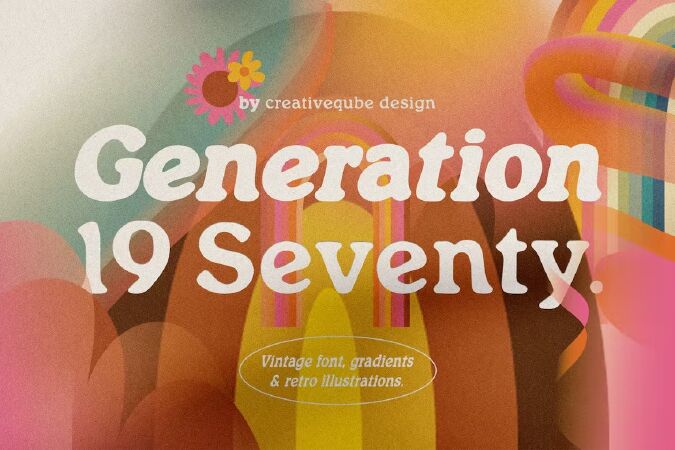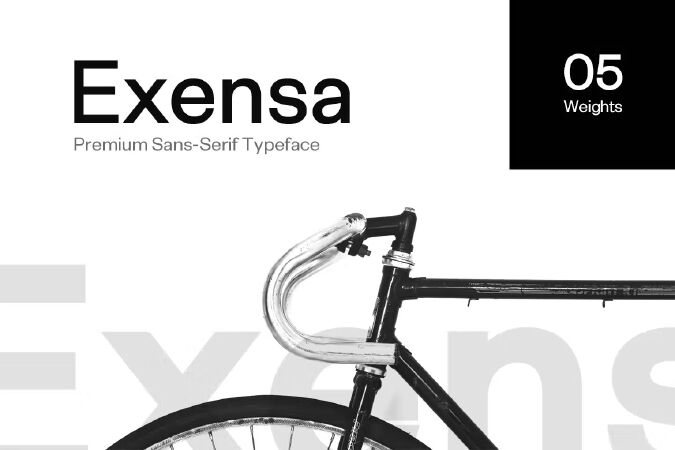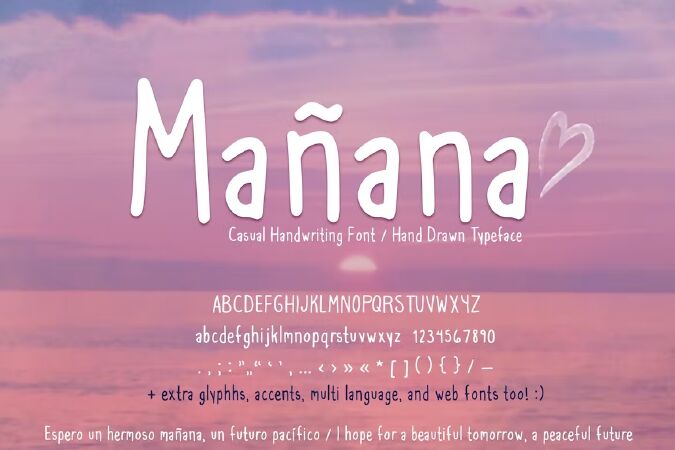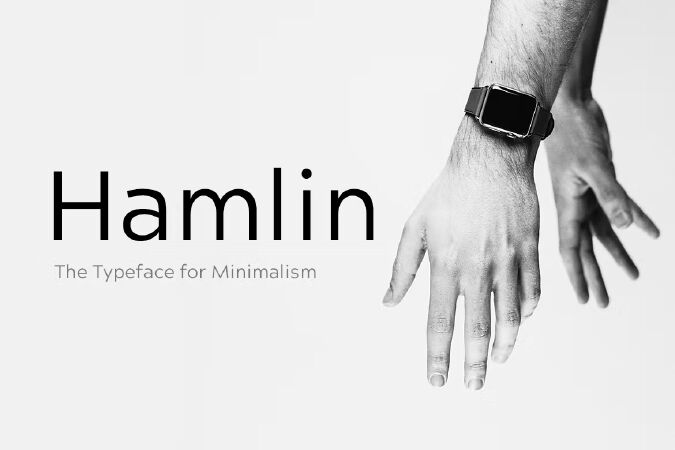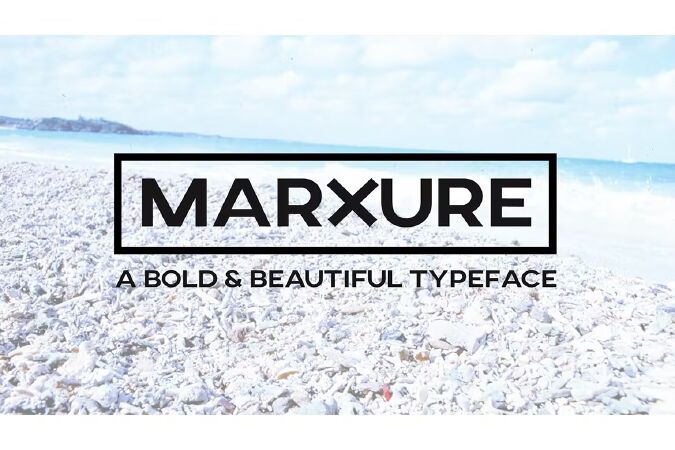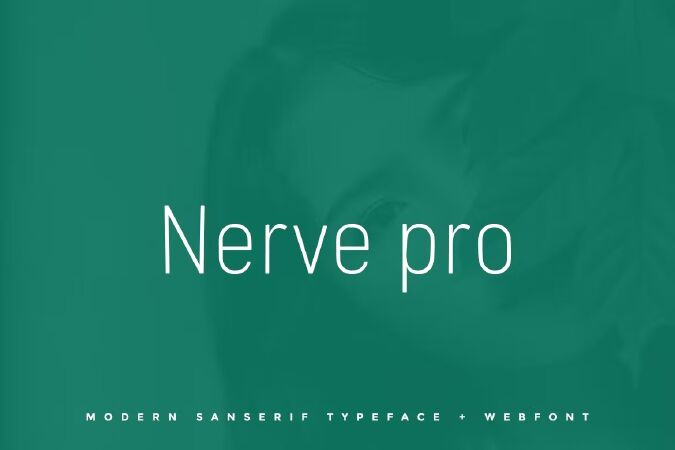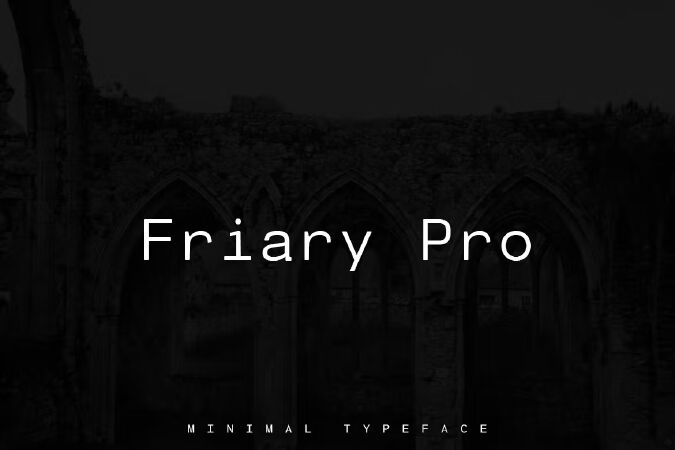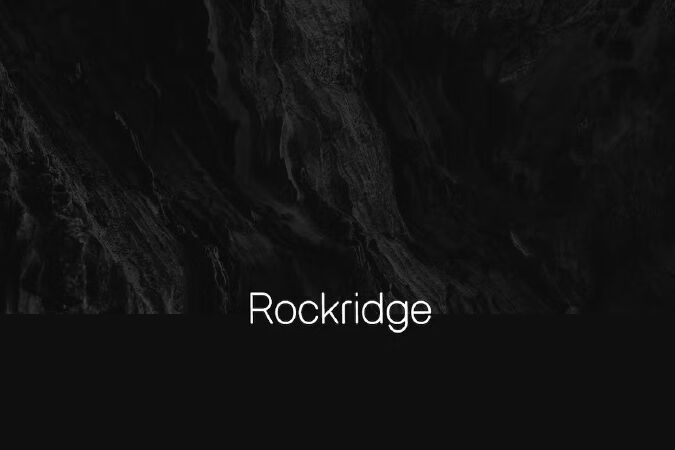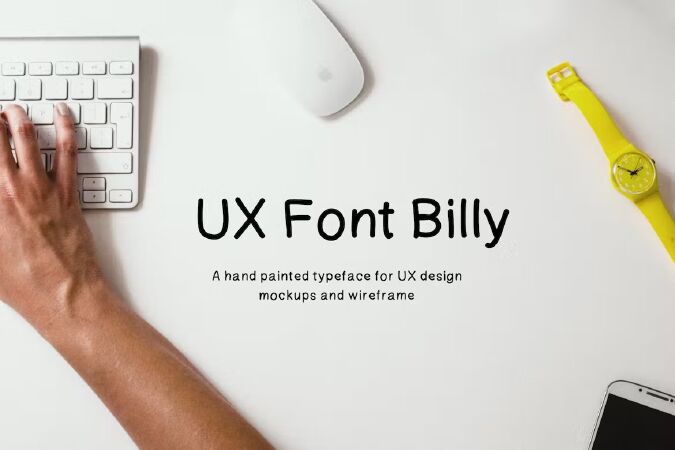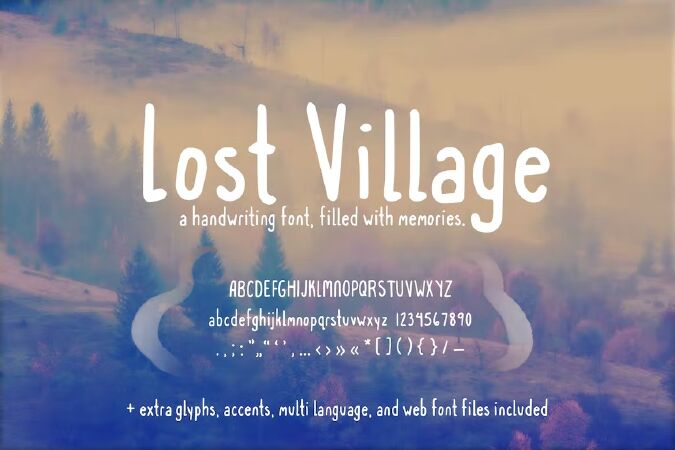
Top 20+ Best Fonts For Your Websites In 2023
Fonts are crucial for creating an awesomeuser experience, conveying brand values, and completing your web design. Not only do fonts affect the readability of your content, but they can also have a powerful psychological impact on your visitors. Each font family has its own character, look, feel and different variations. Choosing the right web fonts is critical to your site’s success. Luckily, this guide is here to help you find the best fonts for you. We’ve researched and found 20 of the best fonts for websites.
1 Generation 1970 Fonts
Generation 19 Seventy is a hip vintage serif font that makes for stunning logos, quotes, wedding invites, blog posts, Instagram, and more! Included is 12 different variations including italicsBold, Condensed, Light, and more.
• Regular Serif
• Italics, Bold, Condensed, Light, Bold Italics, Condensed Light, Condensed Light Italic, Condensed Bold Italic, Light Italic, Outline.
2 Smiley Face Retro Font (90s Handwriting Web Fonts)
Introducing Smiley Face, a retro font with 90's influence. If you love 90's aesthetic fonts, different fonts that play with spacing, handwriting fonts, and just playful fonts, check this one out! I was inspired by the kids shows I grew up with in the 90s. I love a cute handwritten font. This casual font is really fun in different colors. Try it as your next display font!
Every letter was lovingly drawn by me. It includes even more glyphs than featured, including various accents, extended Latin characters, and support for other languages! Web fonts included too, for your website usage.
3 Wave Nautical Font (Handwritten Tattoo Web Fonts)
Introducing Wave Nautical, a sea loving aesthetic font. Love sea shanties? Mermaids? How about retro fonts, or tattoo fonts with a sailor flare? Then you might enjoy this nautical font with a touch of vintage font flare. It's all caps with two variations: upper case letters are filled and lower case letters have a cut out variation. This font also includes extended Latin characters, support for multi languages, and web font files. Enjoy!
Every letter was lovingly drawn by me. This cute font is dedicated to the dread pirate Captain Greenway, a dear friend from the land of renaissance faire!
4 Exensa Grotesk - Sans Serif Typeface & Web Fonts
Exensa Grotesk is an authentic Sans Serif typeface inspired by Swiss Design and some of world's most elegant typefaces that keep the expressive nature of a premium font at it's level best. Exensa Grotesk will be best suited to create nicely looking headlines as well as page content. It is your best choice of Sans Serif font for your next project.
Exensa Grotesk features 5 weights (Light / Regular / Bold / Extra Bold / Black). The pack includes OTF, TTF and Web Fonts (all EOT, SVG, TTF, WOFF included).
5 Mañana Casual Handwriting Font + Web Fonts
Introducing Mañana Casual Handwriting Font, a fun choice if you're looking for hand drawn aesthetic fonts. It has a relaxed feel, like pen strokes on a page. I love cute fonts with an organic look. Whether you're looking for cute fonts, handwriting fonts, or just some different fonts to add to your collection, I hope you enjoy this one!
Mañana also includes a variety of accents, extended Latin characters for multiple languages, and web fonts too! Enjoy!
6 HAMLIN - Minimal Geometric Typeface + Web Fonts
HAMLIN is a modern Sans Serif typeface dedicated to minimalism as new design trend. The concept of HAMLIN is inspired from some of the classic geometric fonts but with it's own uniqueness, depth and identity.
HAMLIN will be best suited for creating amazing headlines, clean body texts, minimal logo types and anything that your imagination can bring to life. If you add some letter spacing you will get a unique style that you always find in high profile fashion web stores and minimal portfolio websites. The font comes with 4 weights with all formats including Web Fonts.
ntroducing, Diana Webber SVG Font Duo.
Diana Webber is a A Display Typeface Family which has two font that is a SVG script and SVG Serif! What a perfect pair.
The texture make it looks like a natural hand writing. Very suitable for you who needs a typeface for headline, logotype, apparel, invitation, branding, packaging, advertising etc.
This typeface is comes in uppercase, lowercase, punctuations, symbols & numerals, stylistic set alternate, ligatures, etc also support multilingual and already PUA encoded.